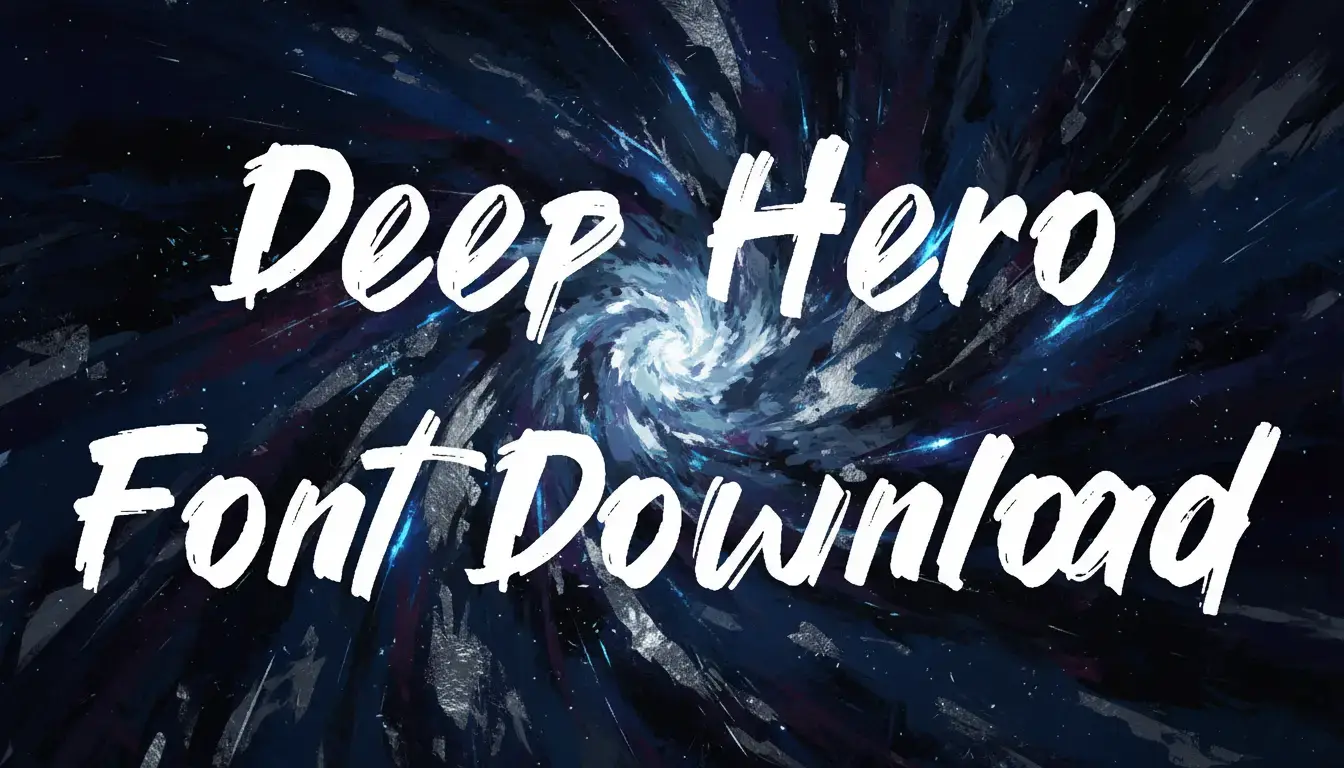
Deep Hero Font
Deep Hero is a script font made by Khurasan. It has that hand-lettered, flowing feel people look for when regular type seems too stiff. It's a free download, and you can try it with your own text in the preview above first.
What You Can Type With Deep Hero
You get every letter from A to Z in both cases and all the numbers from 0 to 9, which means Deep Hero can handle full sentences, dates and prices. Common punctuation such as &, !, ? and @ is included as well. It doesn't include accented letters such as é or ñ, which makes it an English-only font.
Where Deep Hero Works Best
Think of Deep Hero for wedding invitations, logos and signature-style headings. Script fonts read best in short bursts, so keep it to names, titles and one-line quotes. Skip all caps: script capitals are drawn to start a word, not to fill one.
Does Deep Hero support accented letters?
No. Deep Hero has no accented letters such as é, ñ or ü, so it's best for English text.